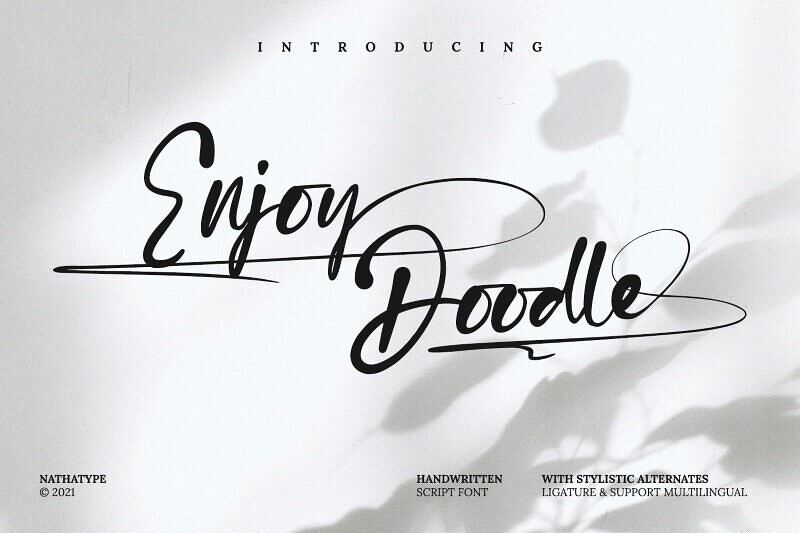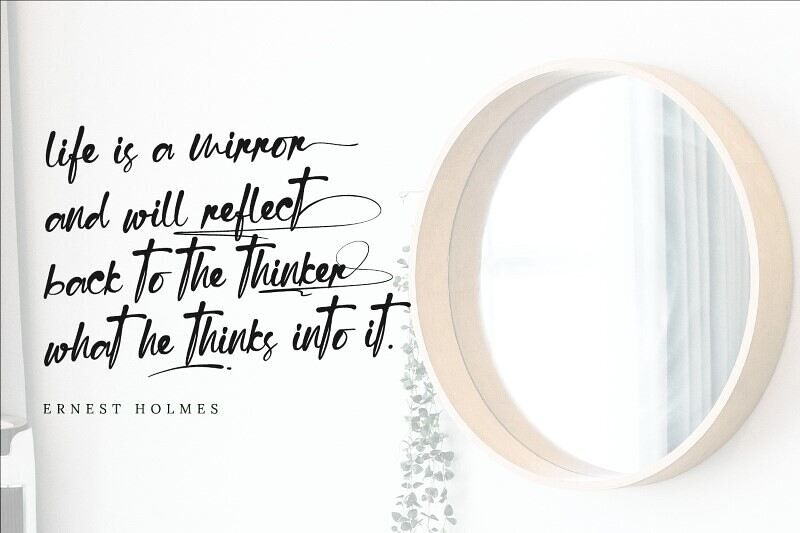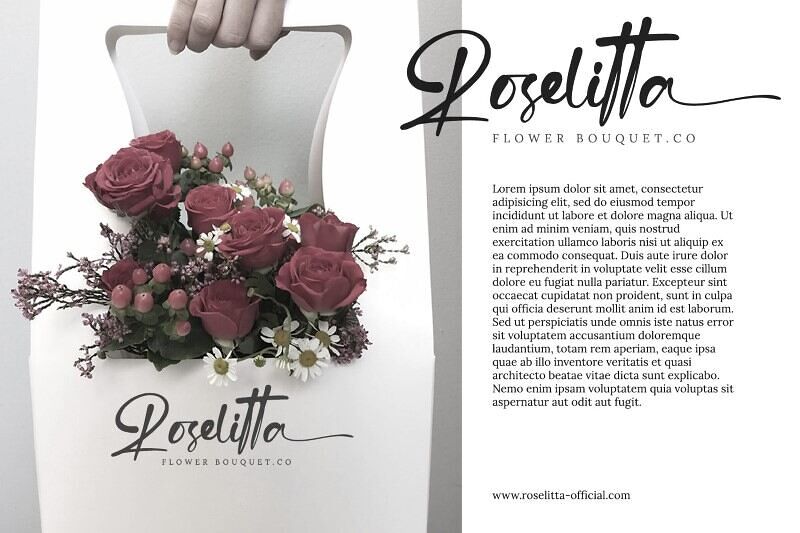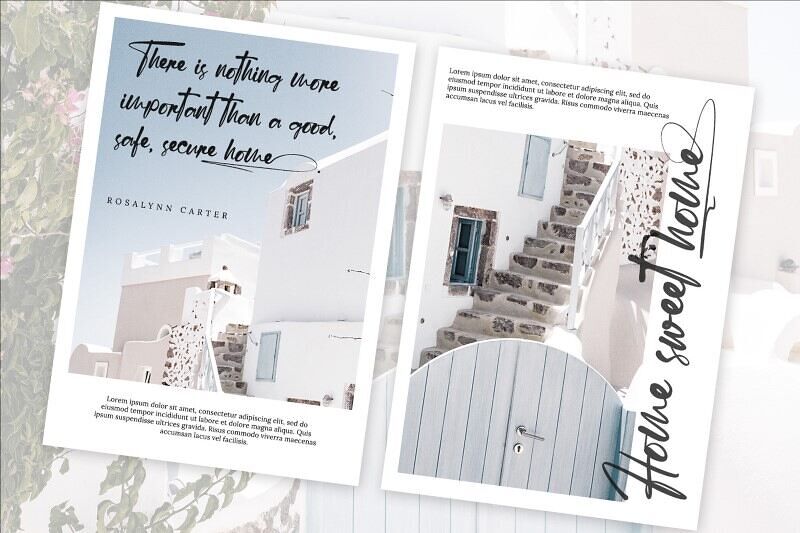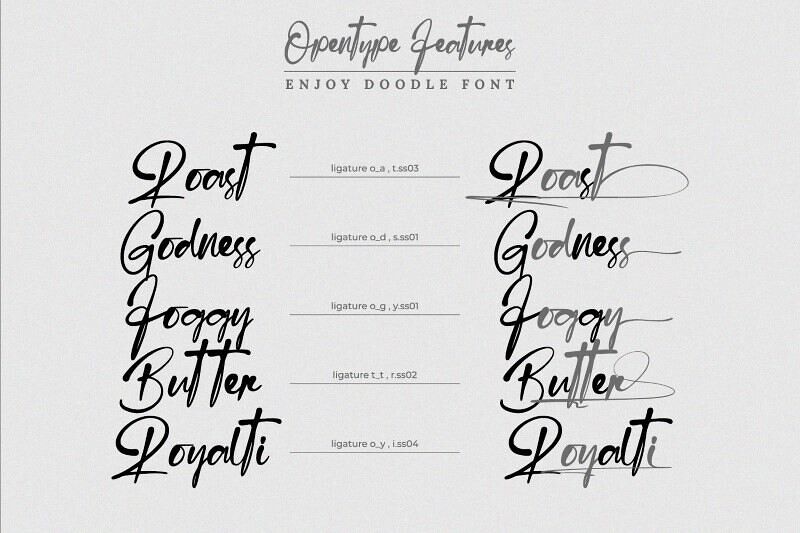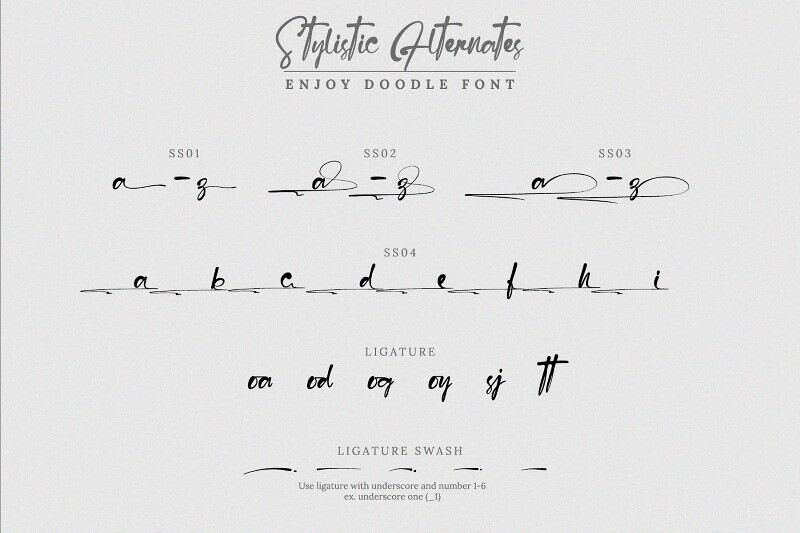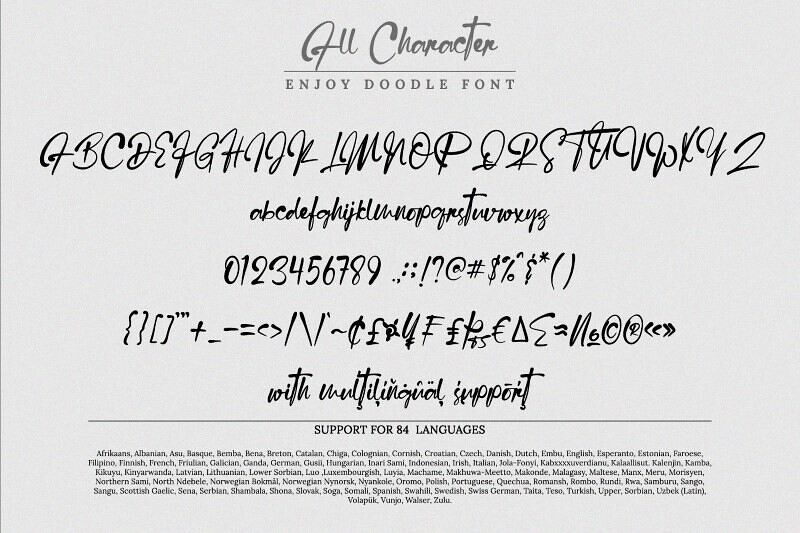
Step into a world of creativity with Enjoy Doodle. Enjoy Doodle is designed to resemble cursive handwriting, evoking a sense of warmth and familiarity. The letters flow gracefully from one to the next, creating a natural and organic rhythm that adds a touch of personality to your text.
Each letter is meticulously crafted to maintain consistency while exuding a whimsical charm, perfect for projects that require a personal touch and a hint of creativity. In addition, enjoy the features here.
Enjoy Doodle fits in headlines, logos, posters, flyers, branding materials, print media, editorial layouts, and many more designs.